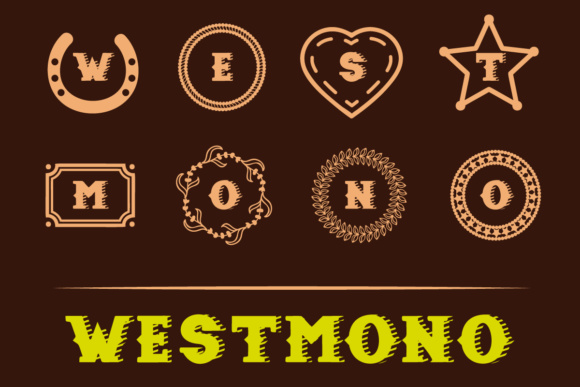
**Adorn Your Designs with the Alluring Charms of West Mono: A Western Monogram Font That Captivates Hearts**
In the vast digital realm, where individuality reigns supreme, West Mono emerges as a beacon of distinct charm, inviting you to infuse your creative endeavors with a touch of the Wild West. This captivating display font, meticulously crafted by the artistic minds at Lickable Pixels, unveils a captivating ensemble of decorative uppercase letters, each yearning to adorn your designs with an aura of rugged elegance.
**Unleash Your Creativity with Limitless Monogram Combinations**
With West Mono, the possibilities for monogrammatic artistry are boundless. Effortlessly blend these captivating letters with an array of thoughtfully designed monogram frames, seamlessly integrated within this remarkable font family. From the iconic horseshoe, embodying the spirit of the untamed frontier, to the sheriff's star, exuding an air of authority and justice, these frames elevate your designs, transforming them into visual masterpieces.
**Embark on a Typographic Adventure:**
Step into a world where letters dance with freedom, where each character carries the essence of the Wild West. Let West Mono guide you on a typographic adventure, where your designs transform into captivating narratives, each stroke of the pen a testament to your creative prowess.
**A Font Rooted in Western Heritage, Designed for the Digital Age:**
West Mono draws inspiration from the rich tapestry of Western heritage, capturing the essence of a time when cowboys roamed the vast plains and outlaws sought fortune and glory. Reimagined for the modern age, this font transcends the boundaries of time, seamlessly blending the allure of the past with the dynamism of the present.
**Craft Designs That Speak Volumes: A Myriad of Applications Await**
Whether you're a seasoned designer seeking to elevate your branding endeavors or an aspiring artist yearning to leave an indelible mark on the digital landscape, West Mono stands as your steadfast companion. Its versatility knows no bounds, effortlessly adapting to a symphony of creative expressions. From captivating logos that command attention to eye-catching social media posts that ignite engagement, West Mono empowers you to craft designs that speak volumes, leaving a lasting impression on your audience. Unleash your imagination and witness the transformative power of this remarkable font.
**Immerse Yourself in the Enchantment of the Wild West: A Font Steeped in History**
With West Mono, history comes alive, inviting you to weave tales of adventure, courage, and unwavering determination. Each letter, meticulously crafted, carries the weight of a thousand stories, whispering secrets of a bygone era. Embrace the allure of the Wild West, let your creativity roam free, and let West Mono be your guiding light on this extraordinary typographic journey.